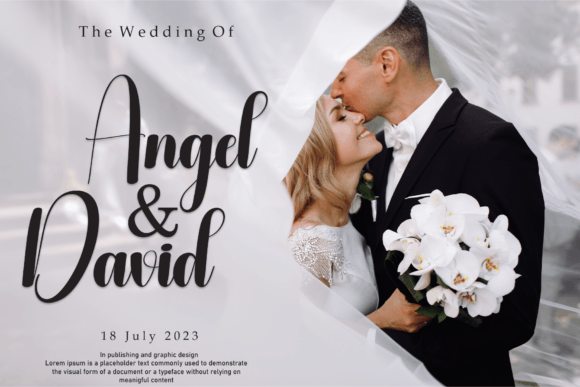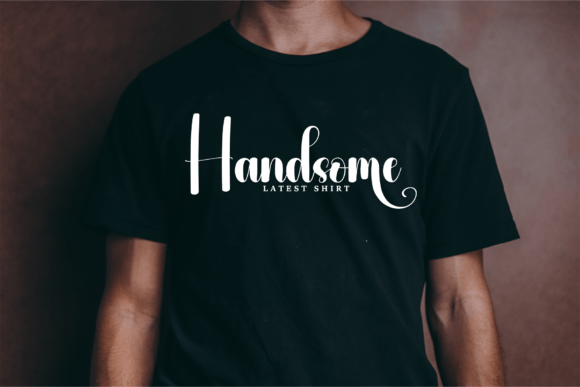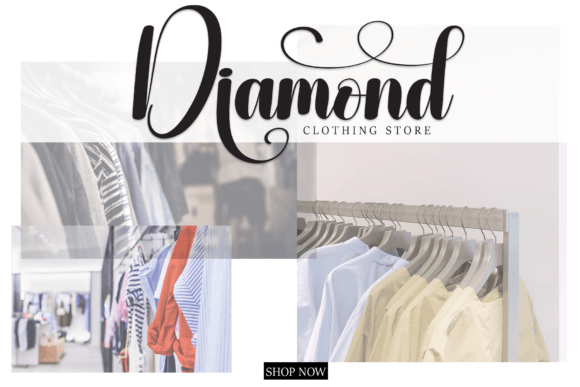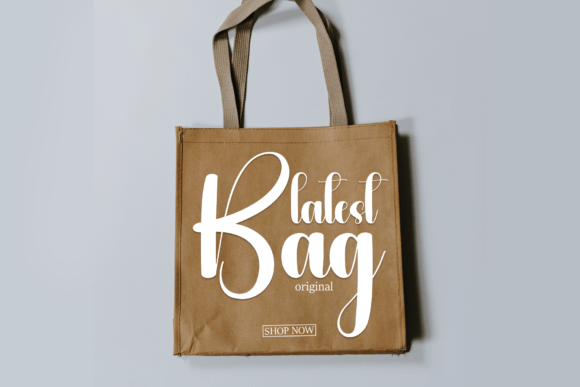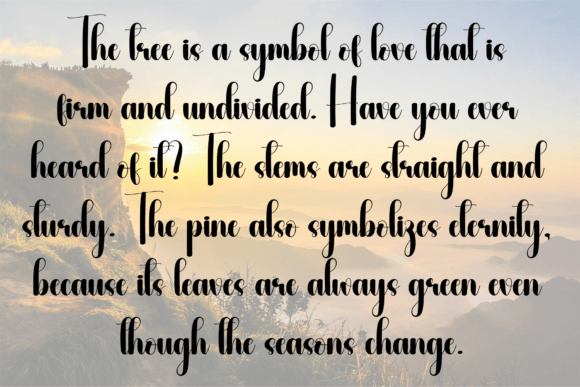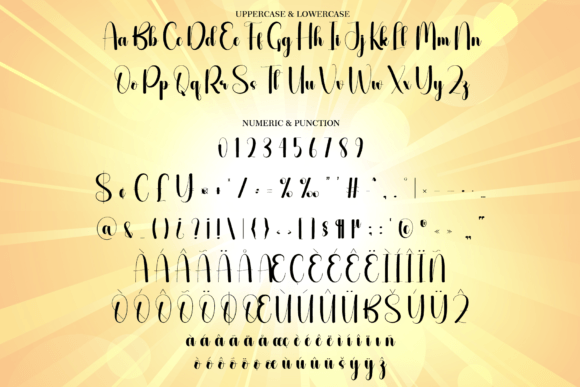
Introduction to Shinyyellow Font
Have you ever found yourself stuck in a creative rut, searching for the perfect font to bring your design to life? I know I have. It was on one such frustrating afternoon that I stumbled upon the Shinyyellow Font – a game-changer for any design project. This sweet and friendly handwritten font is the epitome of freshness and casual charm, making it an ideal choice for writing wedding invitations, cards, or any other design that requires a lovely touch.
As a designer, you know how valuable it is to have a reliable design resource that can elevate your creative project. The Shinyyellow Font is one such resource, offering a high-quality, free download that can be used with a transparent background to create stunning designs. Whether you’re working on a personal project or a client’s brief, this font is sure to bring a smile to your face and a touch of whimsy to your design.
Key Features of Shinyyellow Font
- Unique, modern font with a transparent background, allowing for seamless integration with various design elements.
- Features a clean, minimalist design with a high level of detail, making it perfect for use in logos, branding, and other visual identity projects.
- Includes a range of characters, including uppercase and lowercase letters, numbers, and punctuation marks, making it a versatile design resource.
Honest Review: Shinyyellow Font
As a designer, I’m always on the lookout for high-quality design resources that can elevate my creative projects. Recently, I stumbled upon the Shinyyellow Font, and I’m excited to share my honest review with you.
- ✨ The Shinyyellow Font offers a unique and modern design aesthetic that’s perfect for a wide range of creative projects.
Overall, I’m impressed with the Shinyyellow Font’s unique design and versatility. While it may have some limitations, it’s a great resource for designers who are looking for a modern and creative font for their projects. With some careful consideration of its limitations, I would recommend the Shinyyellow Font to designers who are looking for a high-quality design resource.
The Shinyyellow Font is a unique and versatile design resource that offers a transparent background and high quality for your creative project needs. It’s a free download that can be easily integrated into various platforms.
The Shinyyellow Font is ideal for a variety of creative projects, including logo design, social media graphics, and presentation slides. It’s also a great choice for creating eye-catching headings and titles.